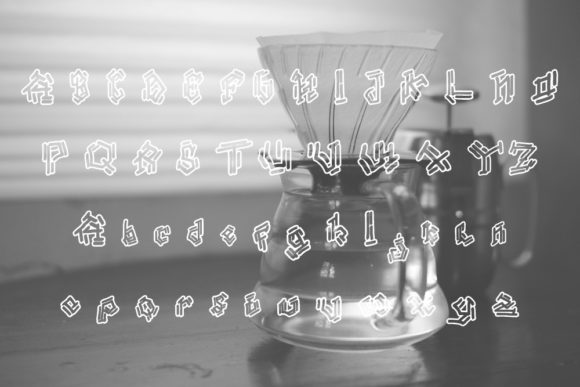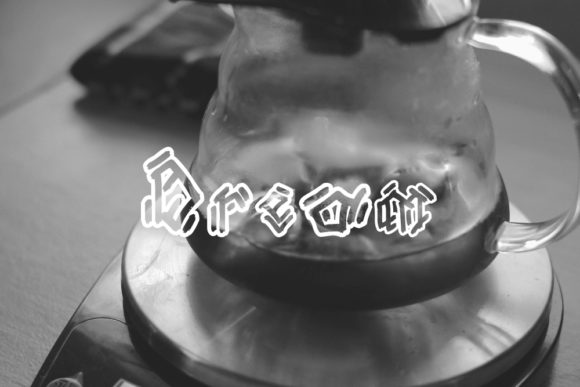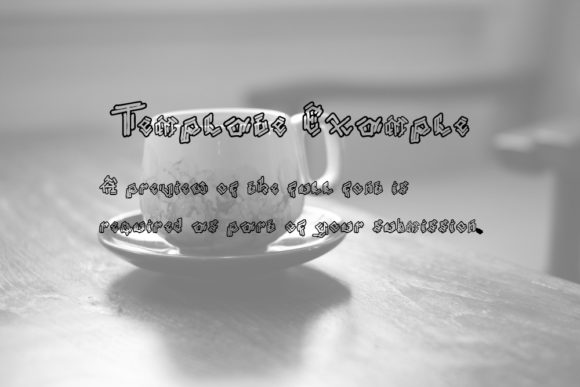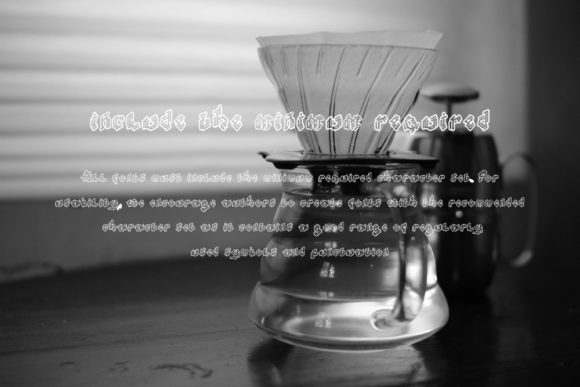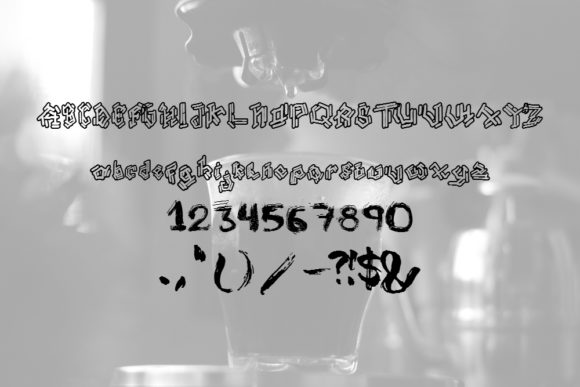
Bamboe Hutan Font: Elevate Your Designs with a Unique Display Font
In the world of typography, a unique font can make all the difference in creating stunning designs that capture attention. If you’re a designer, crafter, or simply someone who loves to dabble in creative projects, you’re in luck! Bamboe Hutan is an original display font that is sure to inspire your next creation. With its distinctive look, this font is perfect for crafting amazing logos, social media posts, greeting cards, and more.
What is Bamboe Hutan Font?
Bamboe Hutan is a display font that boasts a one-of-a-kind design. Its unique look is inspired by the natural world, giving it an organic and earthy feel. The font’s distinctive characteristics make it perfect for projects that require a touch of personality and whimsy. Whether you’re looking to create a bold logo or a charming greeting card, Bamboe Hutan is the perfect choice.
Key Features of Bamboe Hutan Font
- Unique Design: Bamboe Hutan’s design is unlike any other font out there. Its distinctive look is sure to make your projects stand out.
- Display Font: This font is specifically designed for display purposes, making it perfect for headlines, titles, and other attention-grabbing elements.
- Original and Exclusive: Bamboe Hutan is an original font, ensuring that your designs will be one-of-a-kind and exclusive.
Creative Projects with Bamboe Hutan Font
Bamboe Hutan’s versatility makes it suitable for a wide range of creative projects. Here are some ideas to get you started:
- Logos and Branding: Create a memorable logo that stands out from the crowd with Bamboe Hutan’s unique design.
- Social Media Posts: Add a touch of personality to your social media posts with this eye-catching font.
- Greeting Cards: Design beautiful and charming greeting cards for special occasions.
- Invitations and Party Decor: Use Bamboe Hutan to create custom invitations and party decor that will leave a lasting impression.
Why Choose Bamboe Hutan Font?
With so many fonts available, why choose Bamboe Hutan? Here are a few compelling reasons:
- Stand Out from the Crowd: Bamboe Hutan’s unique design ensures that your projects will stand out from the crowd.
- Save Time: With this font, you can create stunning designs in no time, saving you time and effort.
- Easy to Pair: Bamboe Hutan pairs well with a variety of fonts, making it easy to find the perfect combination for your project.
Tips for Using Bamboe Hutan Font
To get the most out of Bamboe Hutan, here are some tips to keep in mind:
- Experiment with Sizes: Play around with different font sizes to find the perfect balance for your design.
- Mix and Match: Combine Bamboe Hutan with other fonts to create a unique and visually appealing design.
- Keep it Simple: Don’t overcomplicate your design – let Bamboe Hutan’s unique design take center stage.
Bamboe Hutan is an original display font that is sure to elevate your designs to the next level. With its unique look and versatility, this font is perfect for designers, crafters, and anyone looking to add a touch of personality to their projects. So why wait? Get inspired by Bamboe Hutan’s distinctive design and create amazing logos, social media posts, greeting cards, and more!